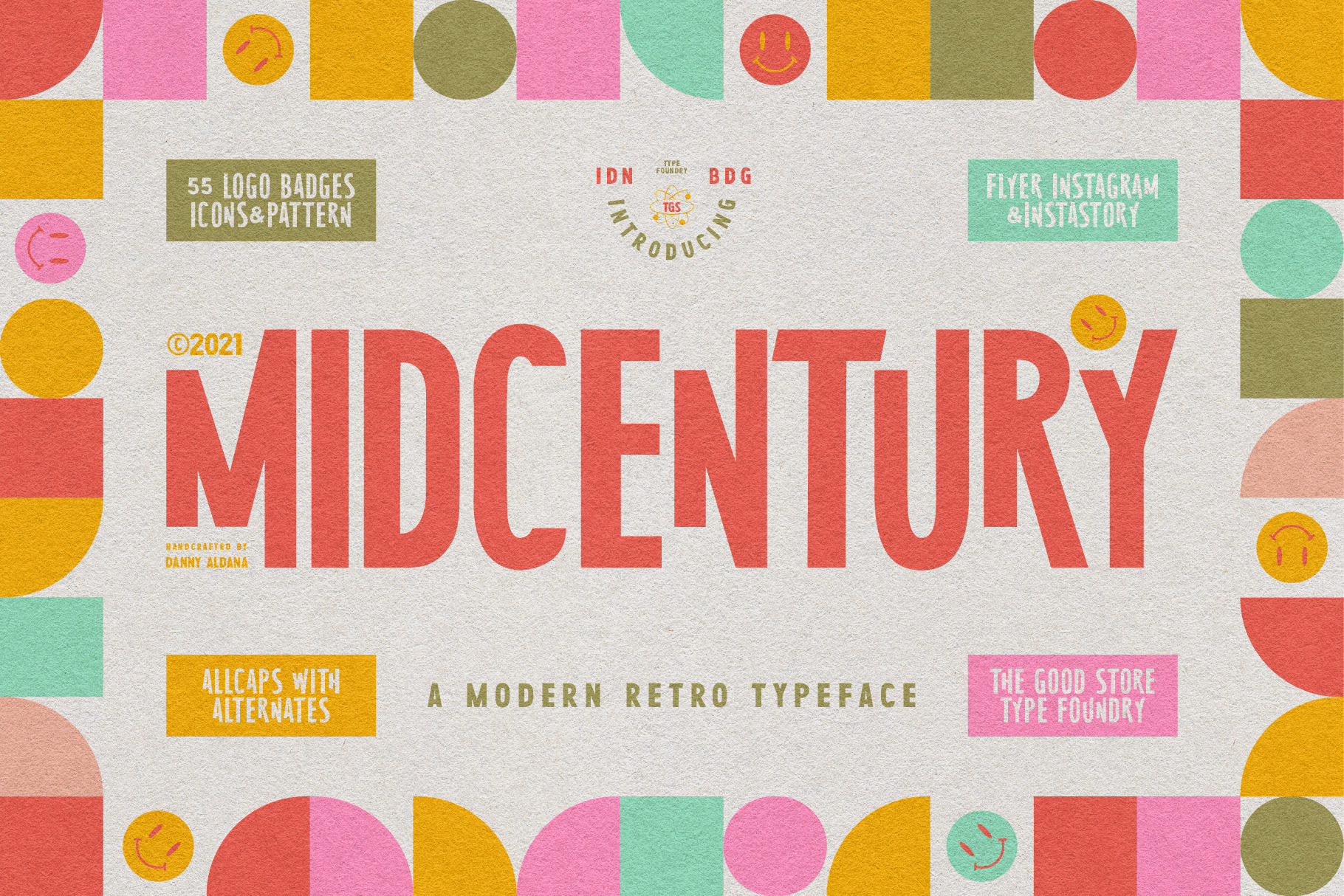
MidCentury Typeface is an All-caps Modern Mid-Century Display Typeface that inspired by many graphic designs back in the 1950s, from poster cover, illustration, novel cover, and many more. With the modern-retro looks, it'll fit various different design needs.